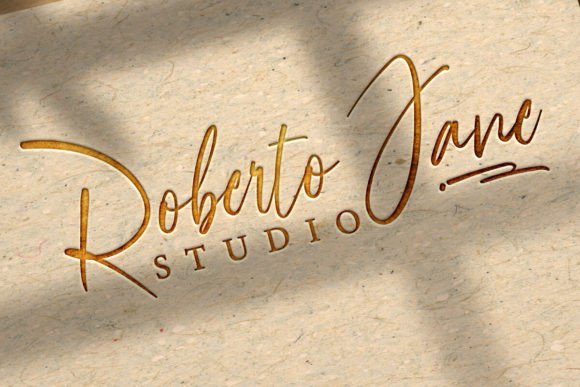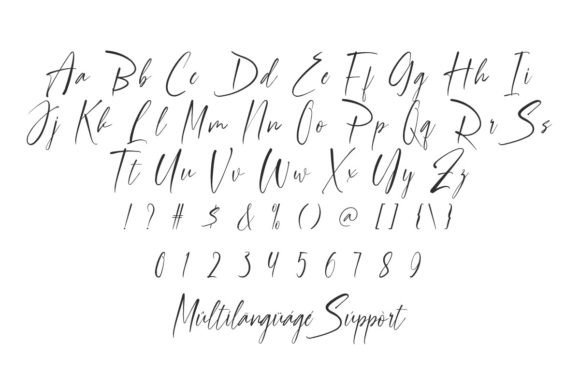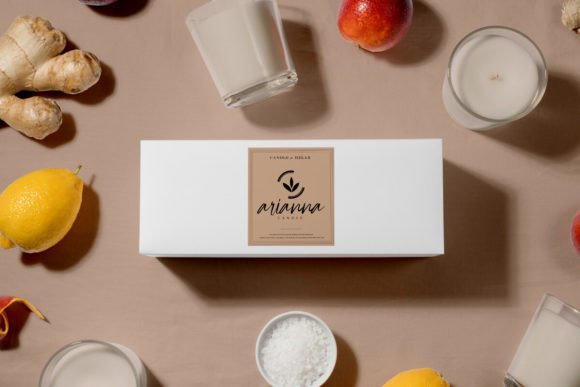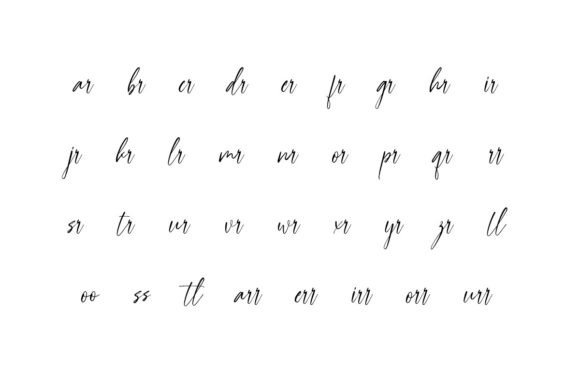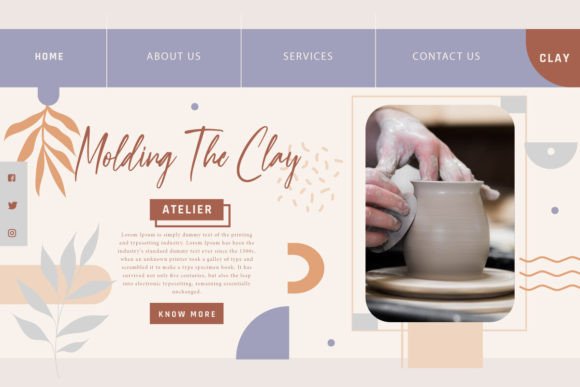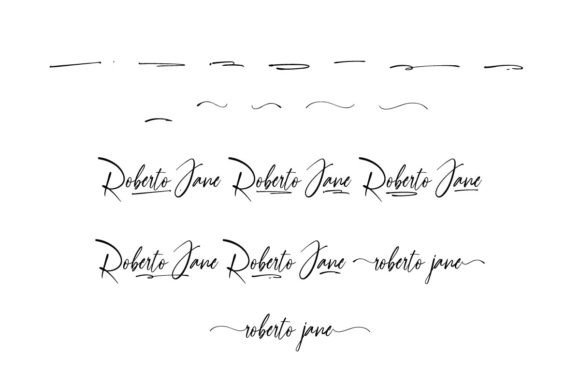
Introduction to Roberto Jane Font
Roberto Jane is a sleek stylish script font with a signature style.
This font is made from a light thin brush that carries a modern concept and still easy to read This font will be suitable for many industries, such as advertisement, beauty product, event or wedding organizer, digital marketing, fashion, handcraft, homeware, photography, printing, publishing, and more.